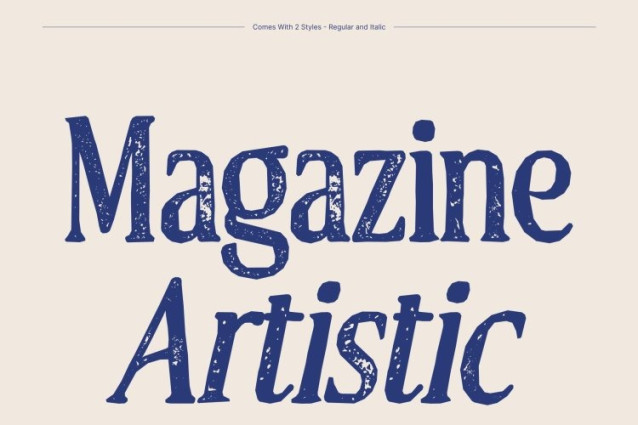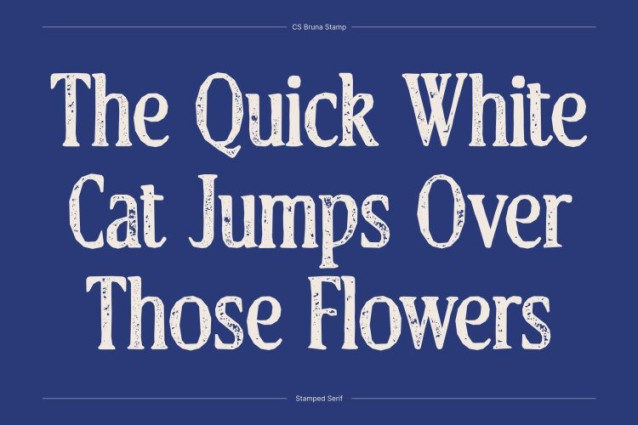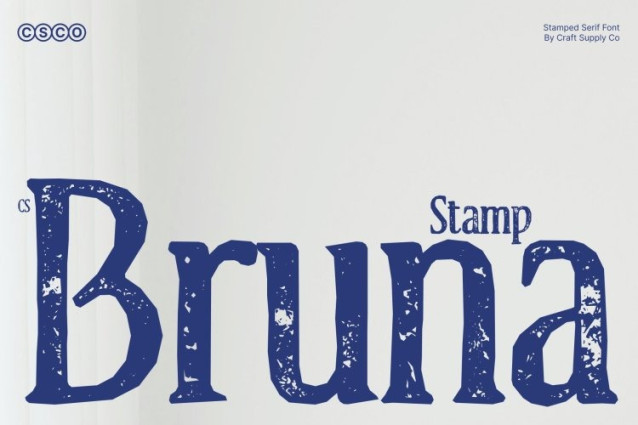
CS Bruna Stamp Font
CS Bruna Stamp Font – This is a sophisticated serif font that embodies modern high-end elegance. Its smooth curves, elongated details, and balanced proportions create a polished and confident appearance. With the added stamp effect, the font gains a subtle artistic texture, lending it a handcrafted, slightly vintage feel that enhances its contemporary sophistication.
Sleek, Balanced, and Readable
The elongated letterforms provide graceful visual flow, while the controlled contrast and clean strokes ensure clarity and versatility. The stamp texture adds depth and character without overwhelming the refined structure, making it perfect for designs that require elegance with personality.
Ideal for Premium Applications
This font excels in projects that demand understated luxury. Perfect for fashion branding, editorial layouts, high-end product packaging, or elegant promotional materials, it conveys sophistication and professionalism while maintaining approachability.
Versatile and Timeless
Combining contemporary serif refinement with a subtle vintage-inspired stamp texture, this font bridges modern style and classic charm. It performs beautifully in headlines, branding, posters, packaging, and long-form text, offering a refined typographic voice that feels both stylish and enduring.